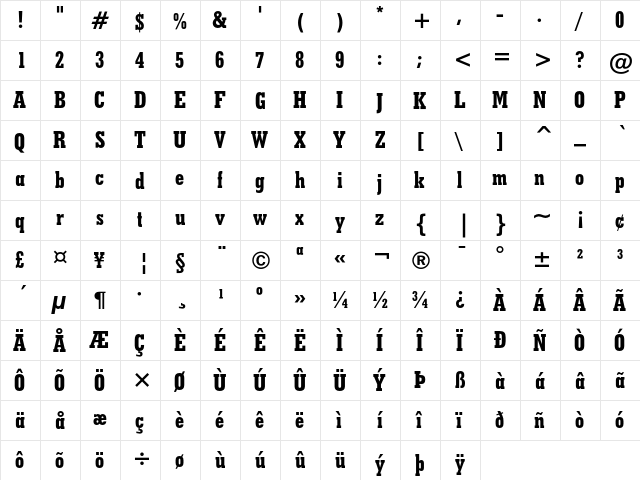
Geometric Slabserif 703 Extra Bold Condensed Font Preview
Design Context for Geometric Slabserif 703 Typeface
Geometric Slabserif 703 combines the readability of serif typography with the visual weight of a slab construction, resulting in a typeface that feels both authoritative and approachable. The heavy weight commands attention and anchors typographic hierarchies. The condensed width makes it efficient for tight spaces without sacrificing legibility.
Works well in editorial design, news publishing, impactful branding, and poster typography.
Pro Tip: Try Geometric Slabserif 703 set tight in headlines for a classic editorial feel. Its slab serifs create strong horizontal rhythm that anchors a page layout.